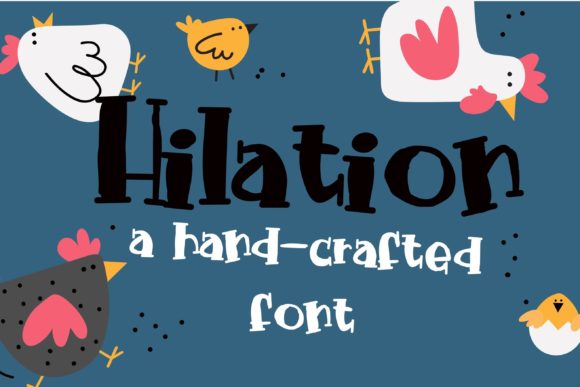
Dive into the enchanting world of Hilation Font, the captivating display font designed to make your creations shine. This font is not just a collection of letters; it's a gateway to express your creativity and make a bold statement. With its unique and eye-catching characters, Hilation Font is the perfect choice for any branding project, from logos that demand attention to t-shirts that tell a story.
Hilation Font is the epitome of versatility, effortlessly adapting to any project you envision. Whether you seek to create a brand identity that leaves a lasting impression or design products that captivate the imagination, this font will be your loyal companion. Its quirky and chic style adds a touch of playfulness and sophistication, making it ideal for everything from playful logos to chic invitations.
Experience the joy of working with a font that makes your designs sing. Hilation Font was meticulously created by Illustration Ink, ensuring that every letterform is a work of art. Its smooth curves and dynamic angles create a visual symphony that will elevate your creations to new heights.
Embrace Hilation Font today and embark on a creative journey where your imagination knows no bounds. Let this font ignite the spark of inspiration within you, unlocking possibilities you never thought imaginable.